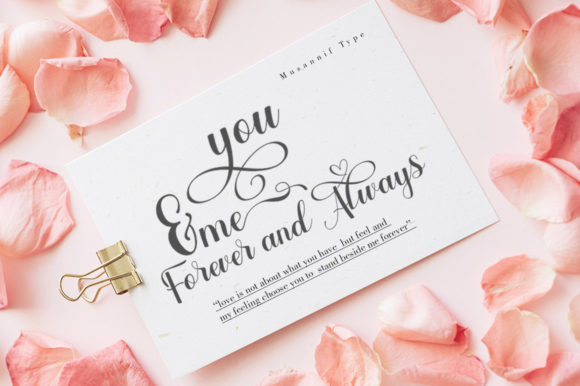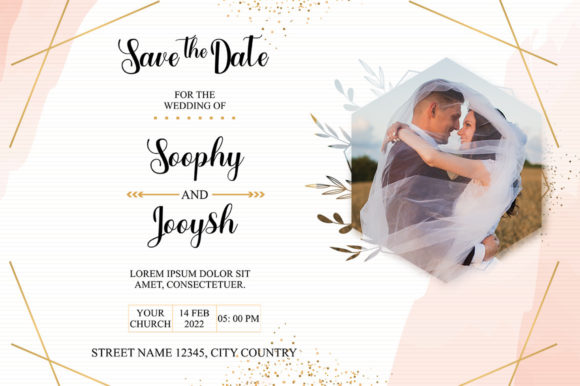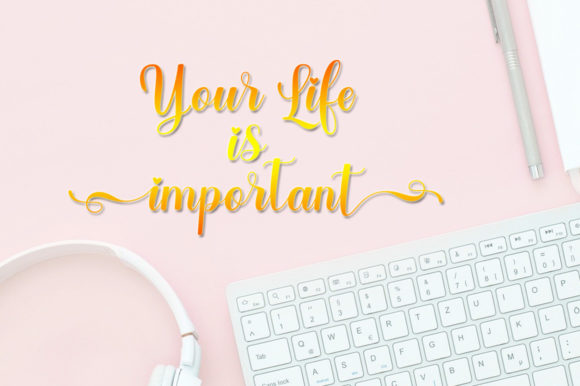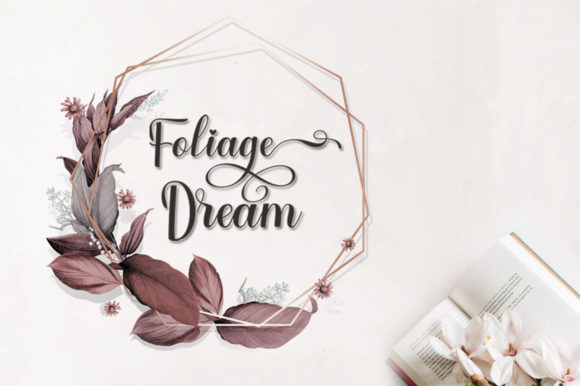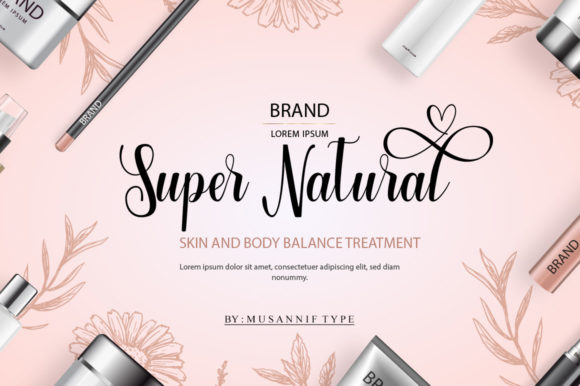
Godewyn Script Font
About Godewyn Script Font
Godewyn Script is an elegant and luxurious calligraphy font. It looks beautiful on a variety of designs requiring a personalized style, such as wedding invitations, thank you cards, weddings, greeting cards, logos and so on. This font is PUA encoded which means you can access all of the glyphs and swashes with ease.